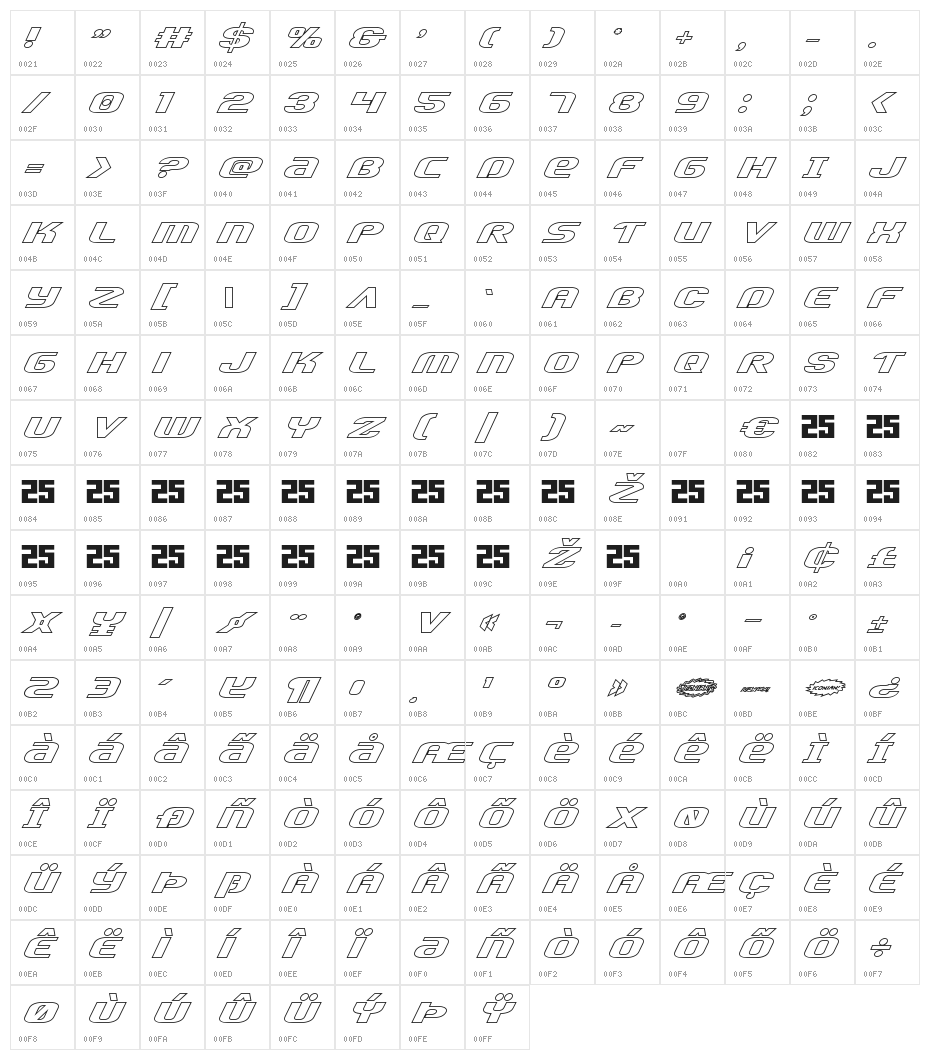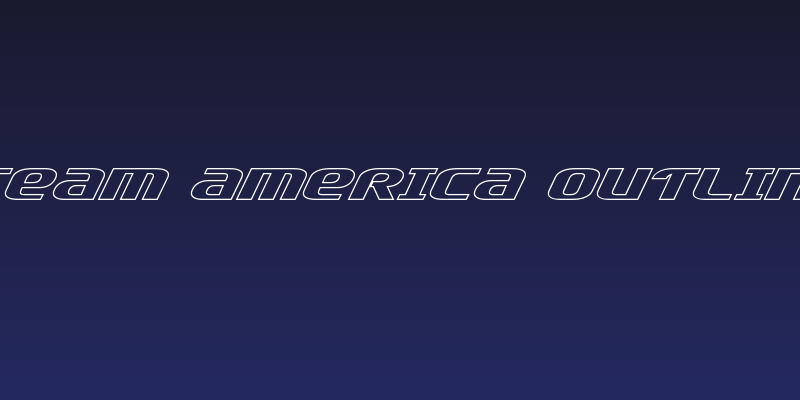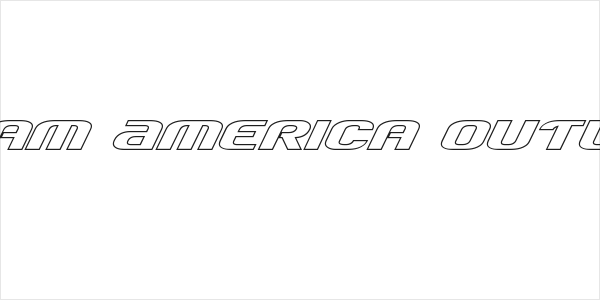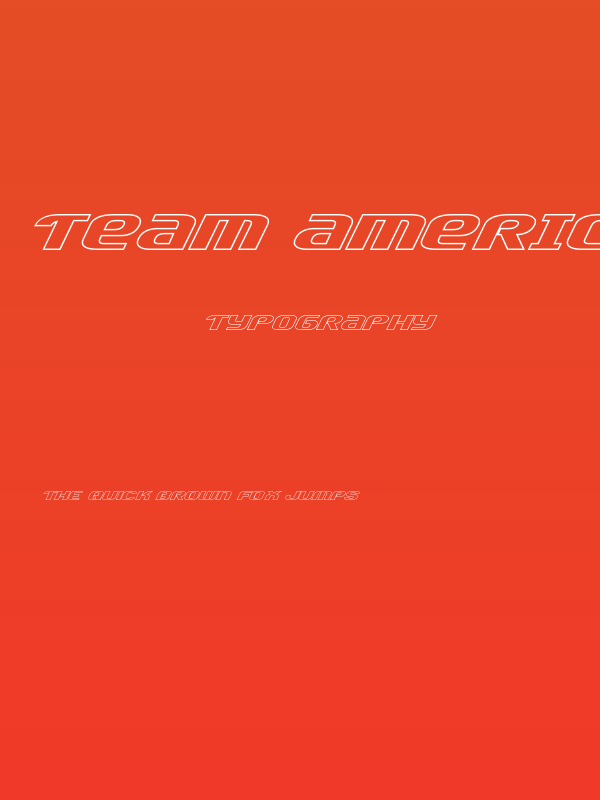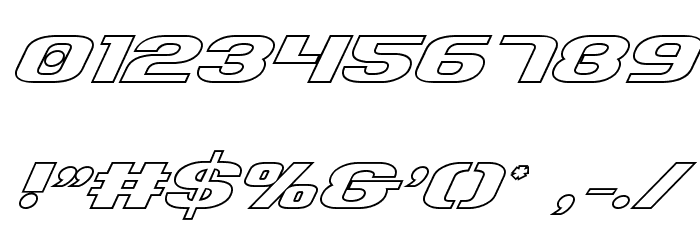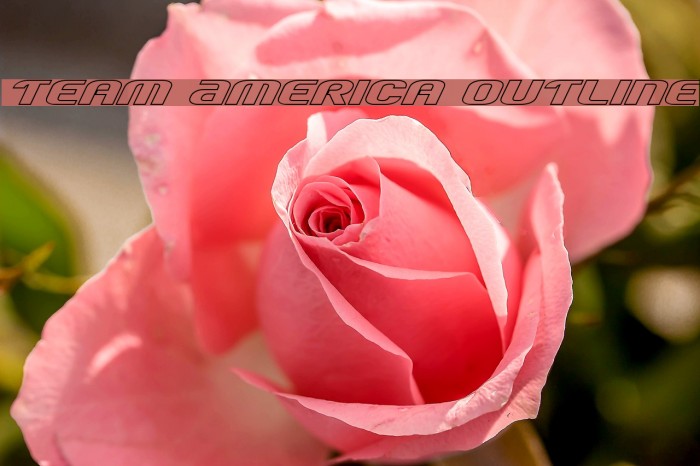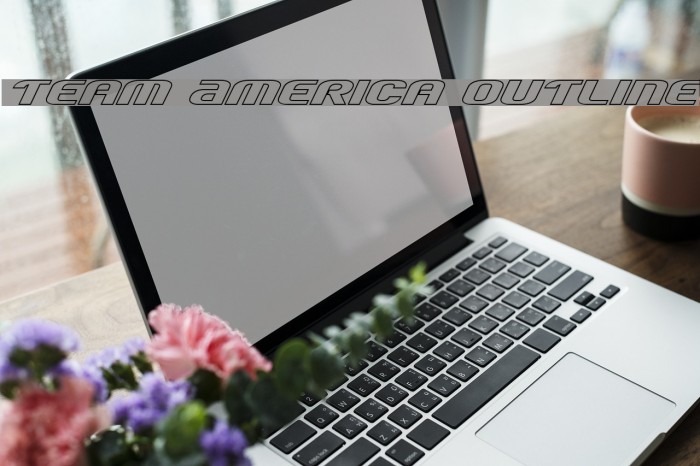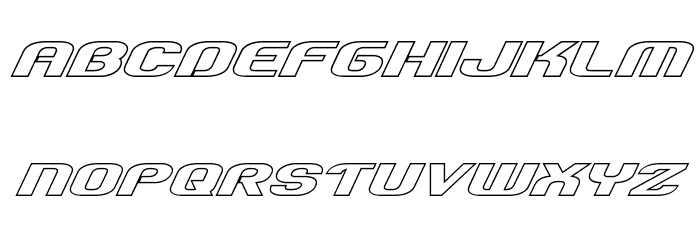
Team America Outline Font
Team America Outline Description
This font features a bold, outlined style with a modern and sporty aesthetic. The characters are uppercase and lowercase alphabets, numerals, and a selection of special characters. The design is characterized by its clean lines and geometric shapes, giving it a dynamic and energetic feel. The outline effect adds a layer of depth and dimension, making it suitable for eye-catching designs. The font maintains a consistent stroke width throughout, ensuring readability while adding a unique flair. Its structured form and contemporary look make it versatile for various design applications.